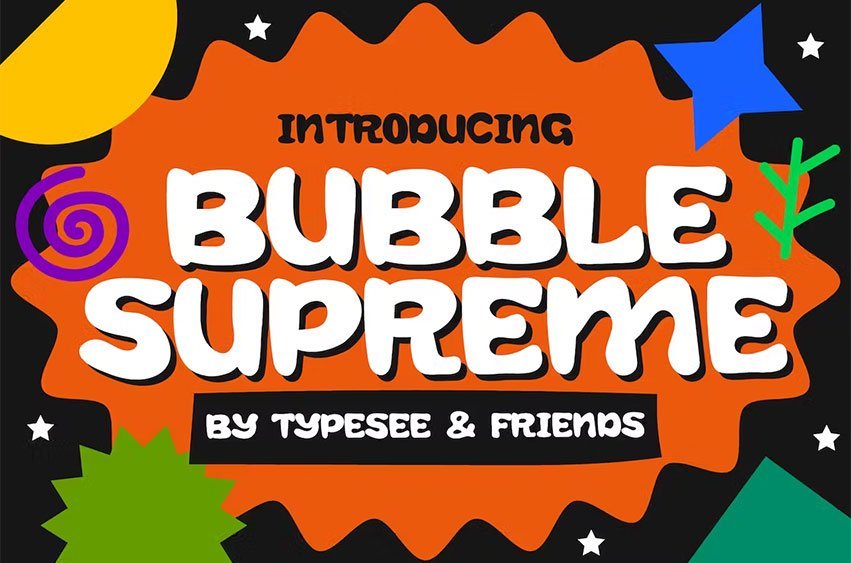
Bubble Supreme Font
Bubble Supreme Font Display Font is a bold and playful typeface that is perfect for adding a touch of fun to your designs. With its stylish retro look, Bubble Supreme offers a range of stylistic options and ligatures that make it a versatile choice for a variety of projects.
Whether you’re creating a unique and fun logotype, designing a magazine layout, or simply looking for a sleek and fun font for your graphics, Bubble Supreme is the perfect choice. It is also well-suited for logos, signage, decor, branding, book covers, clothing, badges, emblems, and much more.